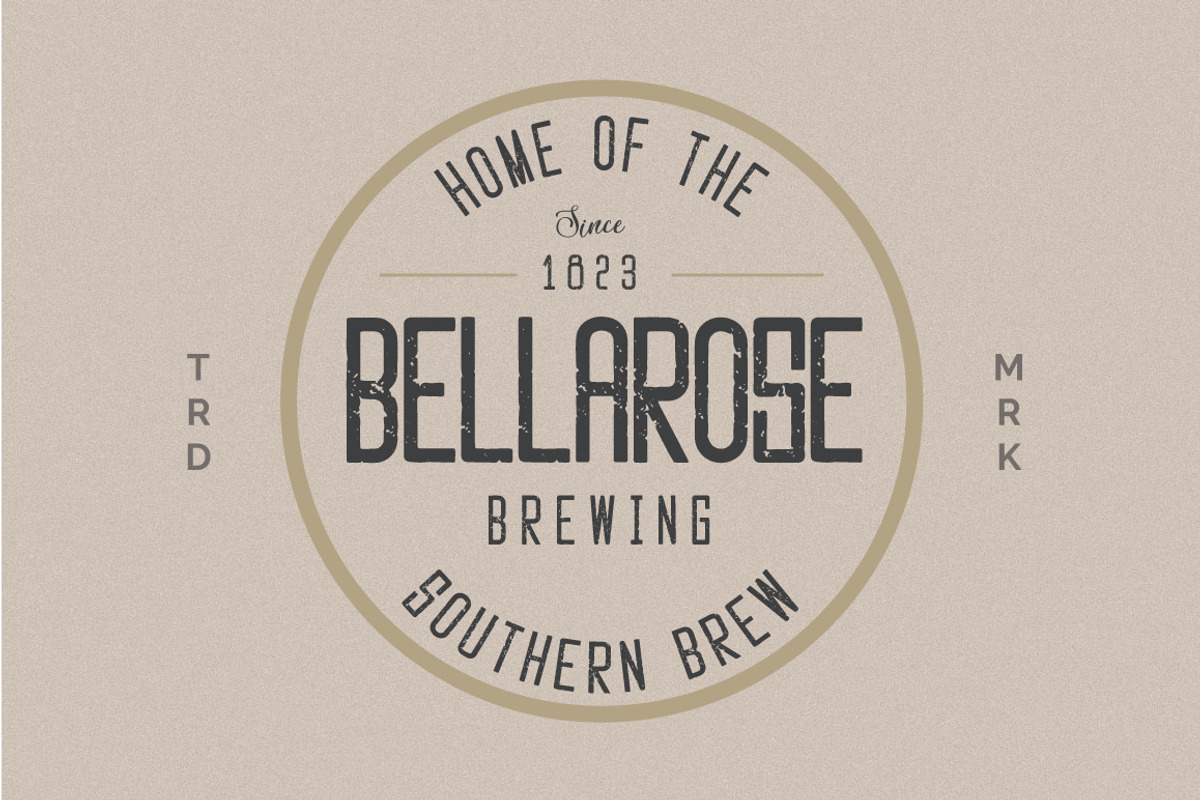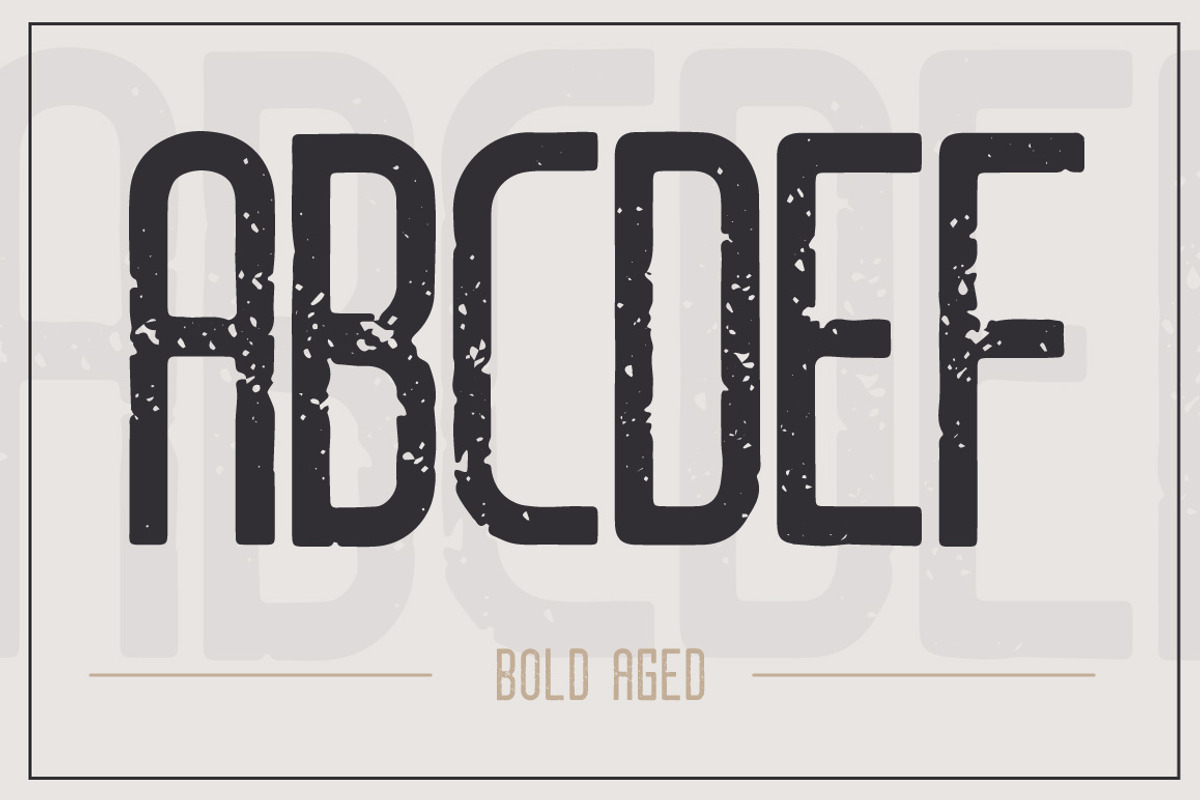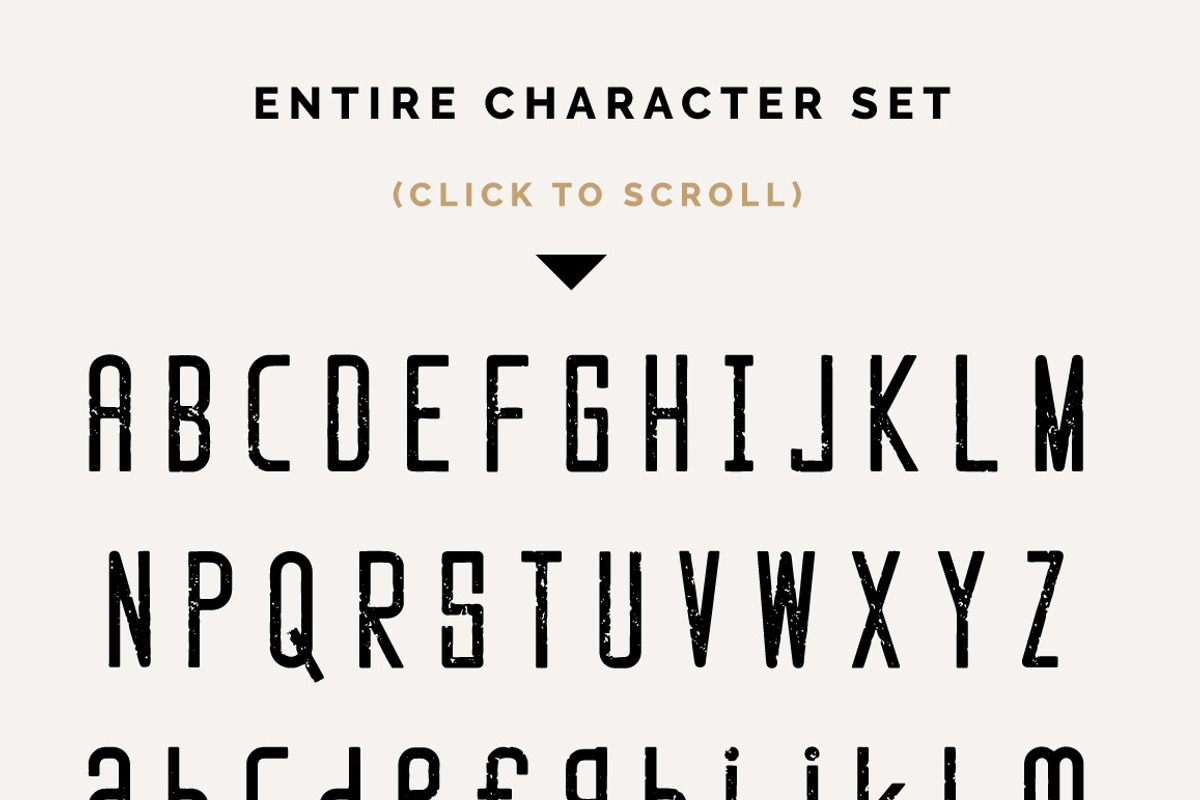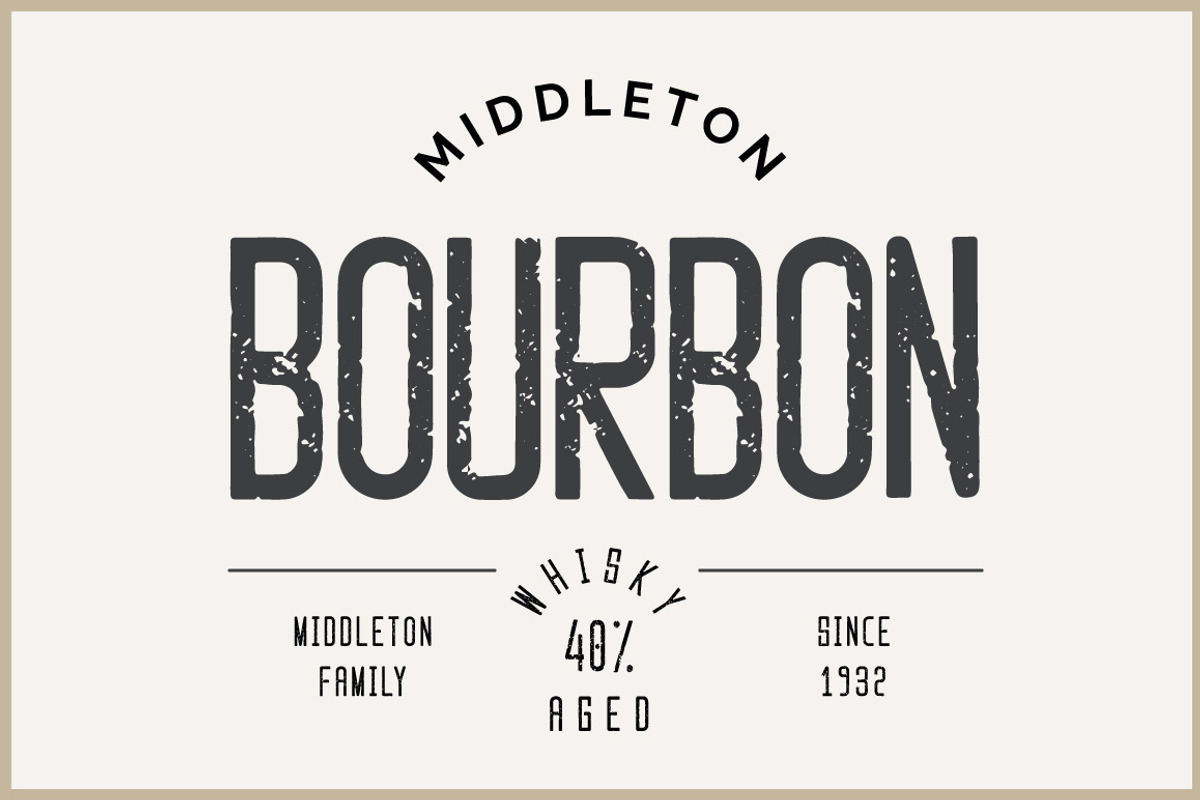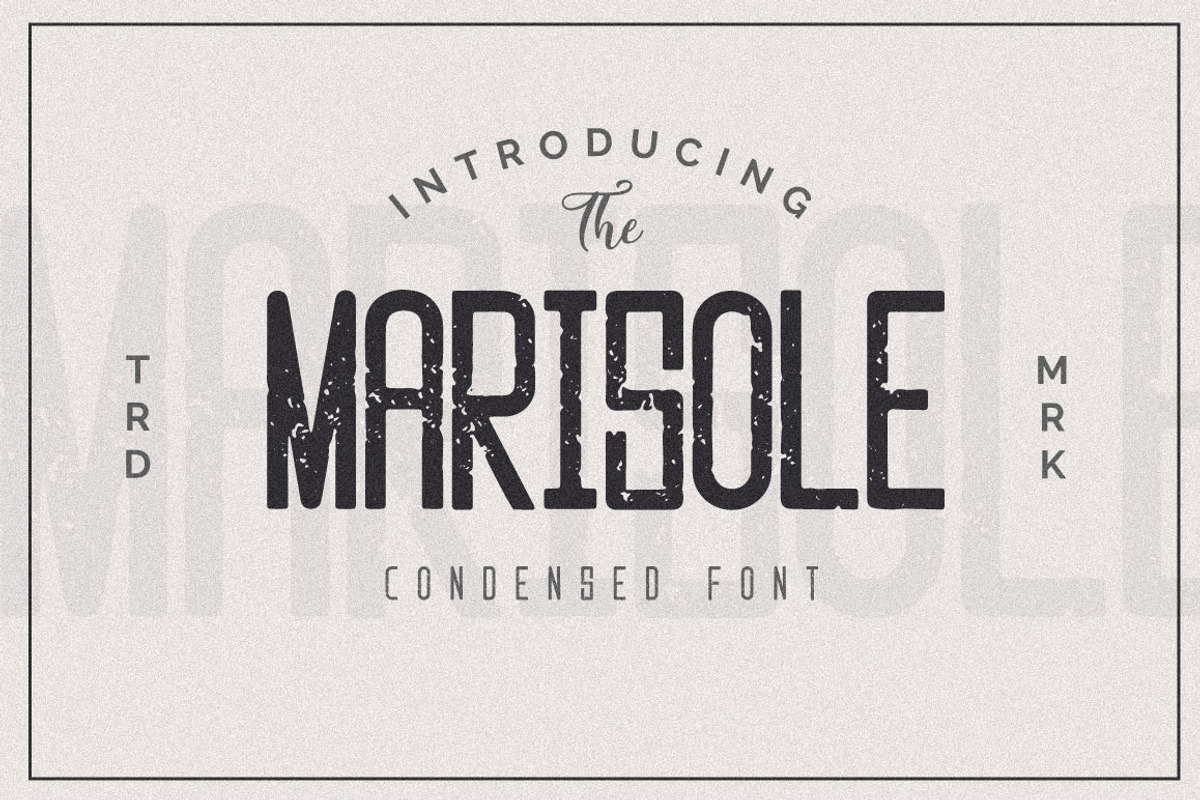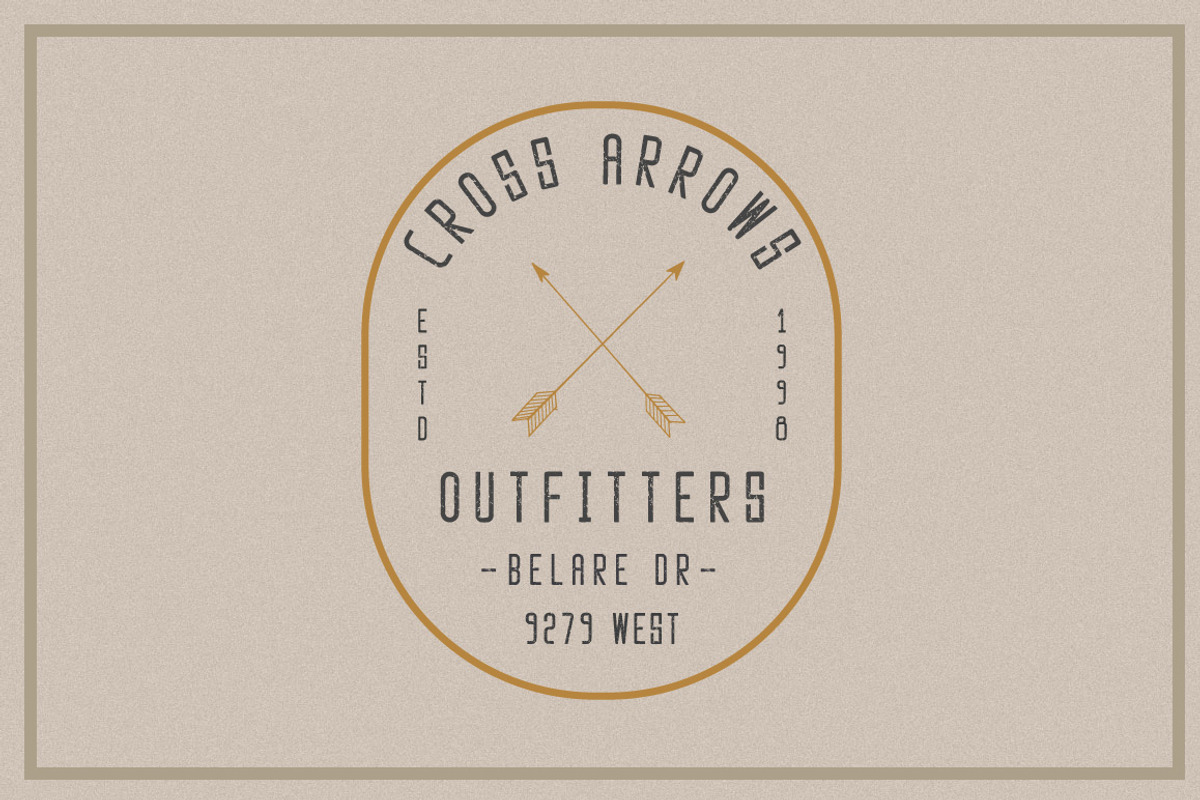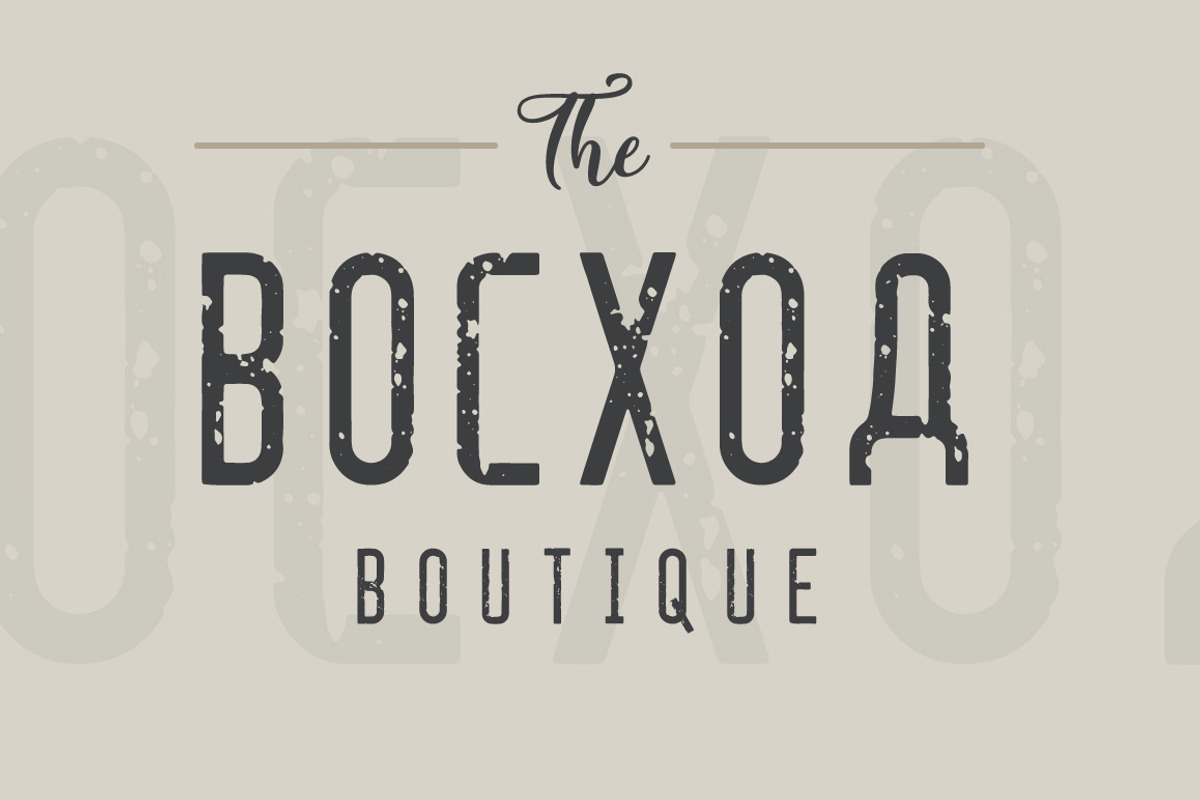
Marisole Condensed Font
Marisoleis condensed sans serif textured font. Each letters have a different textured and bold giving a more rugged vibe for whisky packaging.
This font is a versatile sans serif typeface that gives a vintage aesthetic. It's perfect for whisky label, alcohol label, liquor label, cosmetic packaging and more. It's give you the retro feeling everytime you use it.
Marisole Condensed Font by Digital Hustler fits naturally into Branding, posters, packaging, typography.